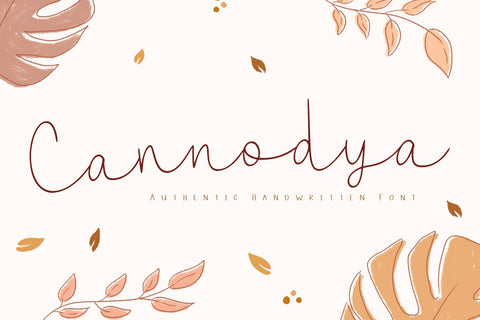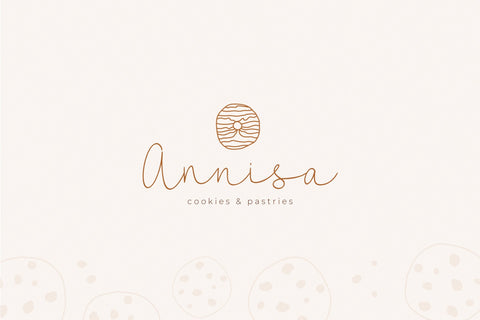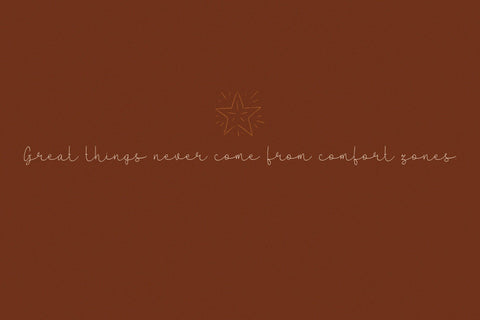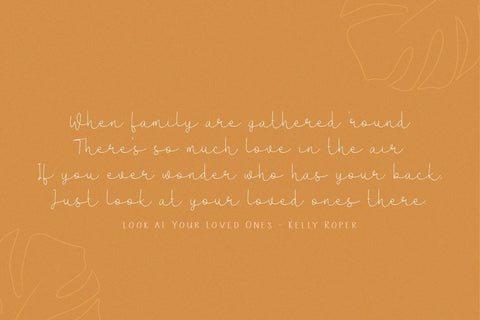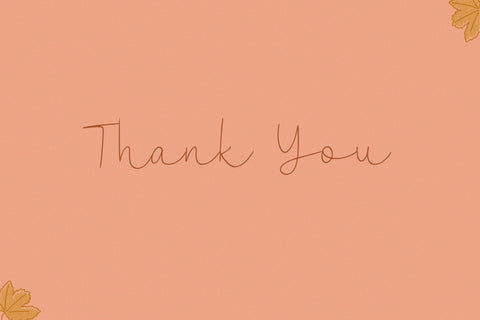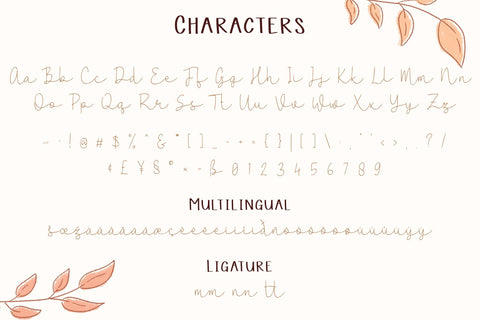
Cannodya | Long Handwritten Font
Cannodya is a delicate and thin lettered handwritten font. It looks stunning on wedding invitations, thank you cards, quotes, greeting cards, logos, business cards and every other design which needs a handwritten touch.